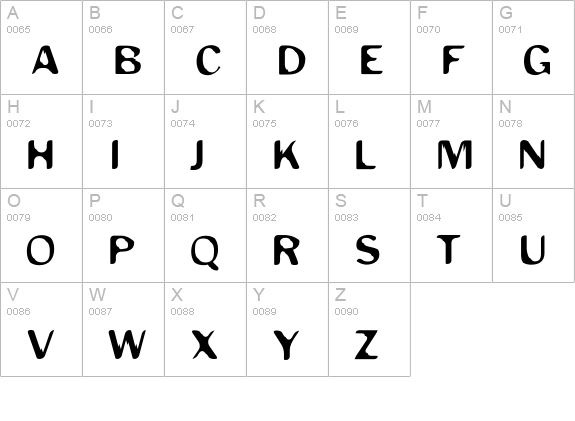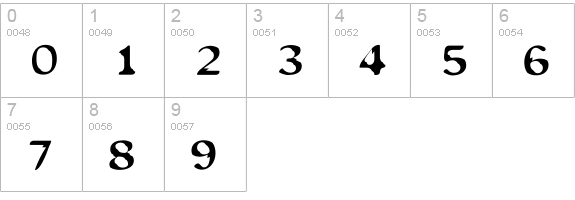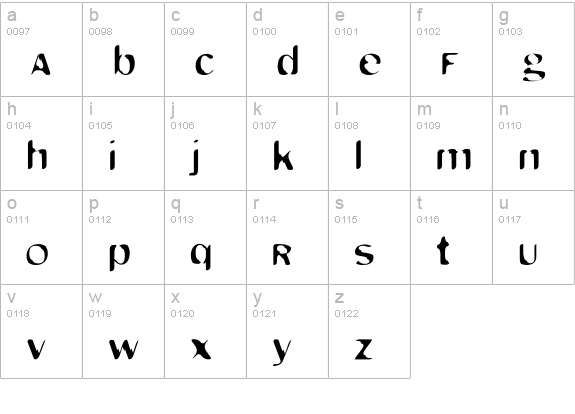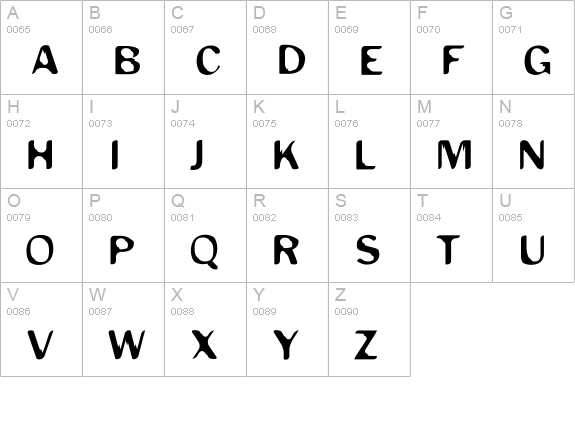
MonkeyCaughtStealing Font Details
MonkeyCaughtStealing font is a playful and whimsical typeface that adds a touch of mischief to any design. With its quirky characters and unique style, this font is perfect for projects that call for a fun and lighthearted feel. Whether you're creating a poster, invitation, or logo, MonkeyCaughtStealing font is sure to catch the eye and bring a smile to your audience's face. Best of all, MonkeyCaughtStealing font is completely free to download at FontsMarket.com. Take advantage of this fantastic offer and add a touch of charm to your next project with MonkeyCaughtStealing font.